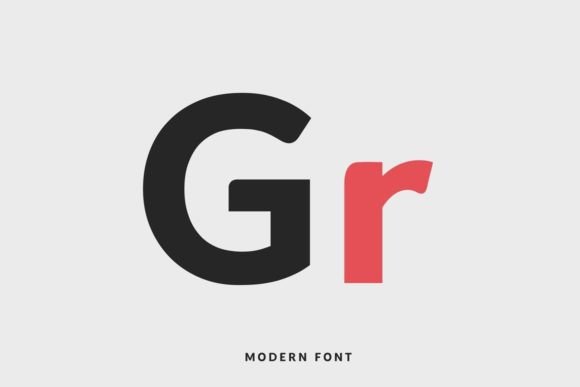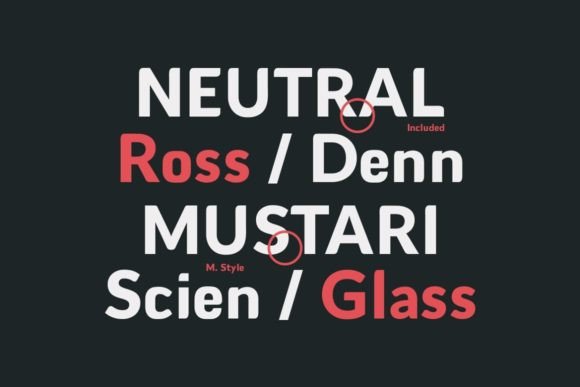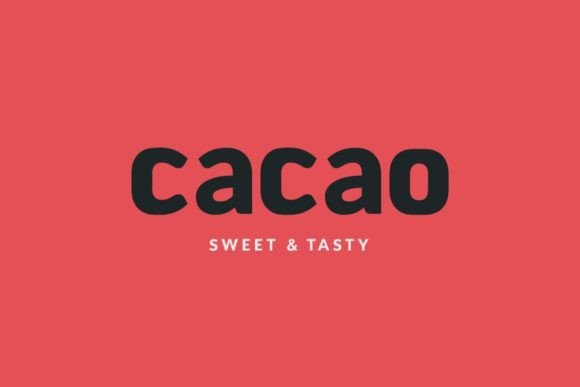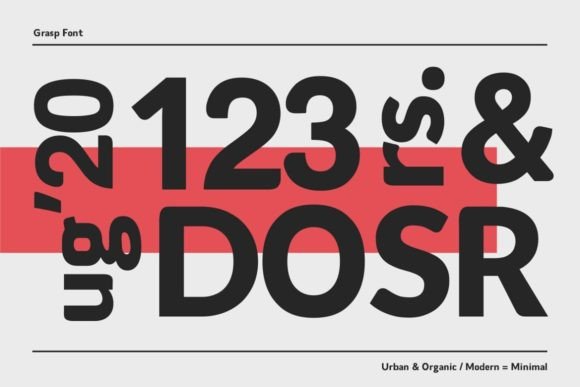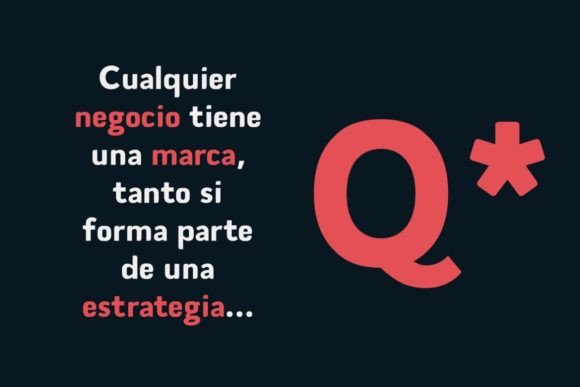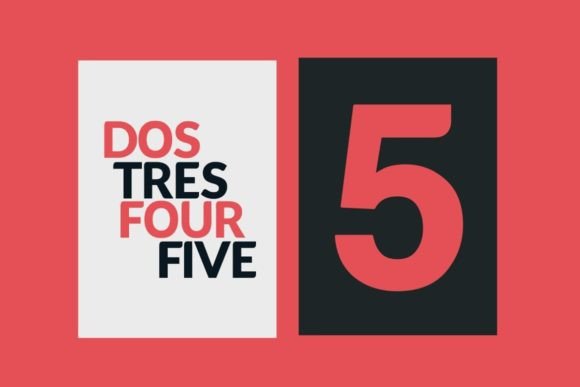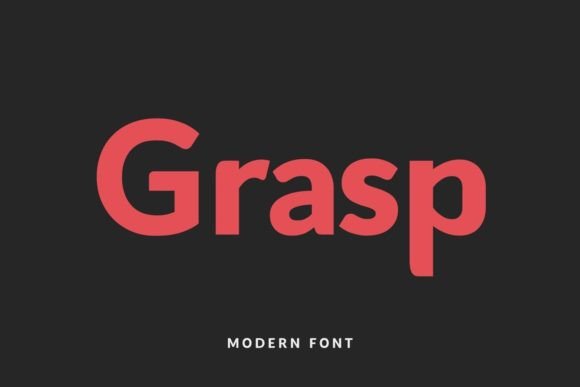
Grasp Font: Elevate Your Designs with a Modern and Elegant Touch
In the world of design, typography plays a crucial role in conveying messages and setting the tone for a brand or project. With the numerous font options available, finding the perfect one that exudes modernity and elegance can be a daunting task. However, if you’re looking for a font that embodies a trendy and sophisticated vibe, look no further than Grasp Font. In this article, we’ll dive into the world of Grasp Font, exploring its features, benefits, and uses, and why it’s a must-have for designers and crafters.
What is Grasp Font?
Grasp Font is a modern and neat sans serif font that has taken the design world by storm. Its clean lines, bold strokes, and elegant curves make it a versatile font suitable for a wide range of design applications. Whether you’re working on a logo, branding project, or marketing material, Grasp Font is the perfect choice to add a touch of sophistication and modernity.
Key Features of Grasp Font
- Modern and Bold Vibe: Grasp Font boasts a modern and bold vibe that can instantly elevate your designs. Its sleek lines and curves give it a fresh and contemporary feel that’s perfect for designs that require a trendy touch.
- Sans Serif Design: The sans serif design of Grasp Font makes it easy to read and understand, even at small font sizes. This feature makes it ideal for body text, headings, and titles.
- Elegant Curves: The elegant curves of Grasp Font add a touch of sophistication and luxury to your designs. This feature makes it perfect for high-end branding projects, luxury goods, and premium services.
- Versatile: Grasp Font is a versatile font that can be used in a wide range of design applications, including logos, branding, marketing materials, and more.
Benefits of Using Grasp Font
Using Grasp Font in your designs comes with numerous benefits. Here are a few:
- Stand Out from the Crowd: Grasp Font’s unique and modern design helps your projects stand out from the crowd. Its bold and elegant vibe is sure to grab attention and leave a lasting impression.
- Enhance Brand Identity: Grasp Font can help enhance your brand identity by adding a touch of sophistication and modernity. Its clean lines and elegant curves make it perfect for high-end branding projects.
- Improve Readability: The sans serif design of Grasp Font makes it easy to read and understand, even at small font sizes. This feature improves readability and makes it perfect for body text and headings.
Uses of Grasp Font
Grasp Font is a versatile font that can be used in a wide range of design applications. Here are a few examples:
- Logo Design: Grasp Font is perfect for logo design, especially for brands that require a modern and elegant touch.
- Branding: Use Grasp Font to create a cohesive brand identity that exudes sophistication and luxury.
- Marketing Materials: Grasp Font is ideal for marketing materials, such as brochures, flyers, and posters, where a modern and bold vibe is required.
- Packaging Design: Use Grasp Font to add a touch of elegance and sophistication to your packaging design.
In conclusion, Grasp Font is a modern and elegant sans serif font that’s perfect for designers and crafters looking to add a trendy and sophisticated touch to their projects. Its clean lines, bold strokes, and elegant curves make it a versatile font suitable for a wide range of design applications. With its numerous benefits, including improved readability, enhanced brand identity, and a modern and bold vibe, Grasp Font is a must-have for any designer or crafter looking to elevate their designs.